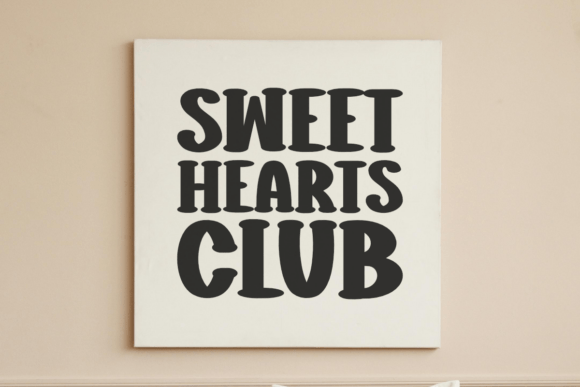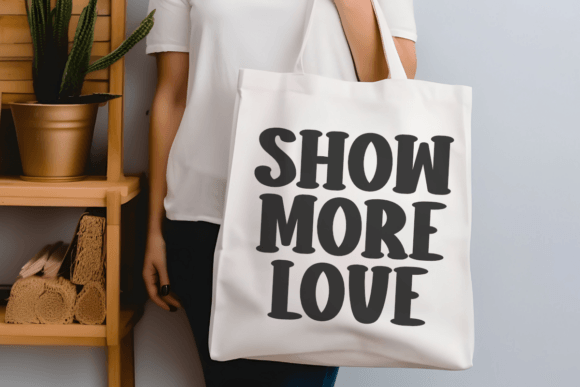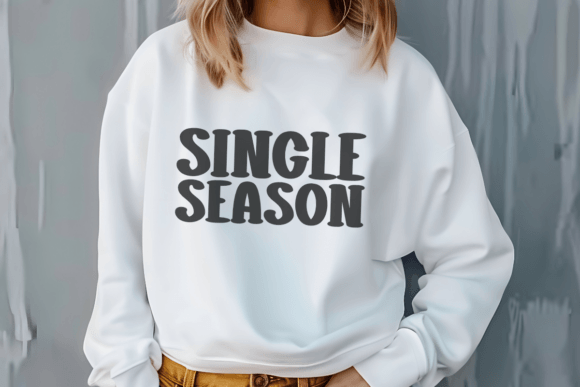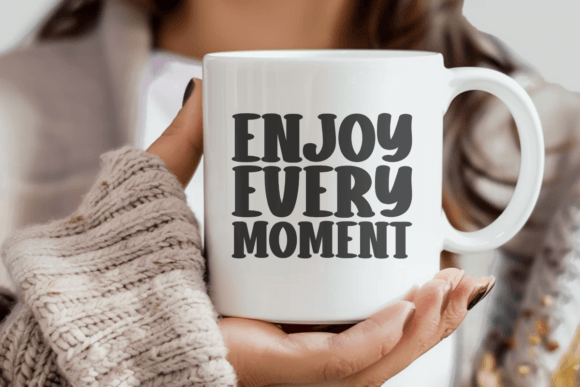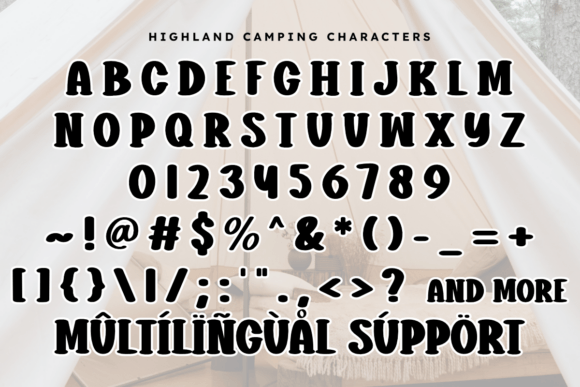
Introduction to Highland Camping Font
Have you ever stumbled upon a design that immediately sparks joy and makes you feel like you’re on a creative adventure? That’s exactly what happened when I discovered the Highland Camping Font. As a designer, I’m always on the lookout for unique and versatile fonts that can add a personal touch to my projects, and this font did not disappoint.
The Highland Camping Font is a modern and friendly slab serif font that’s perfect for adding a touch of whimsy to your designs. Its playful curves and rounded edges bring a sense of warmth and approachability, making it a great choice for children’s books, invitations, and branding projects.
Key Features of Highland Camping Font
- Unique blend of rustic and modern elements, perfect for creative projects
- Includes a wide range of characters, including uppercase and lowercase letters, numbers, and punctuation marks
- Perfect for outdoor-themed projects, such as camping, hiking, and nature-inspired designs
Honest Review: Highland Camping Font
As a designer, I was excited to explore the Highland Camping Font, a free download that promised a unique and creative touch for my next project. Upon initial inspection, I was impressed with the font’s high-quality design and the variety of styles it offers.
One of the things that works well with Highland Camping Font is its versatility. The font comes with a transparent background, making it easy to combine with any image or design element. The font’s customizable features also allow for endless creative possibilities, making it an excellent resource for designers working on various projects.
Some of the strengths of the Highland Camping Font include:
- Unique and creative design
- High-quality rendering
- Customizable features for creative freedom
- The font may not be suitable for formal or professional projects
- The customization options can be overwhelming for beginners
Overall, I was impressed with the Highland Camping Font, and I would recommend it to designers working on creative projects. While it may not be perfect for every project, its unique design and high-quality rendering make it a valuable resource in any designer’s toolkit.
Getting the Most Out of It
To get the most out of the Highland Camping Font, use it on a transparent background to create a sense of depth and dimension. This font is perfect for outdoor-themed projects, such as camping or hiking-related designs.
The Highland Camping Font is commonly used in:
- Outdoor-themed designs
- Camping and hiking-related projects
- Travel and adventure branding